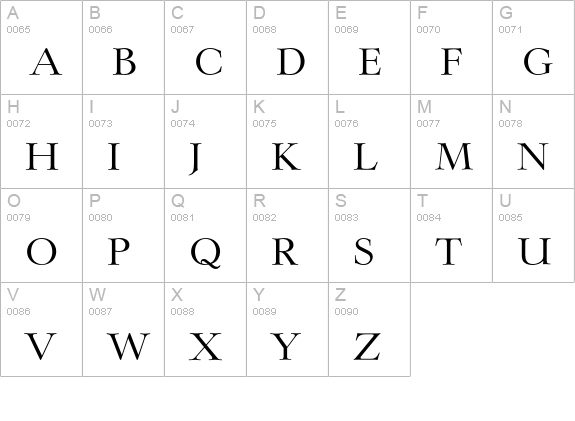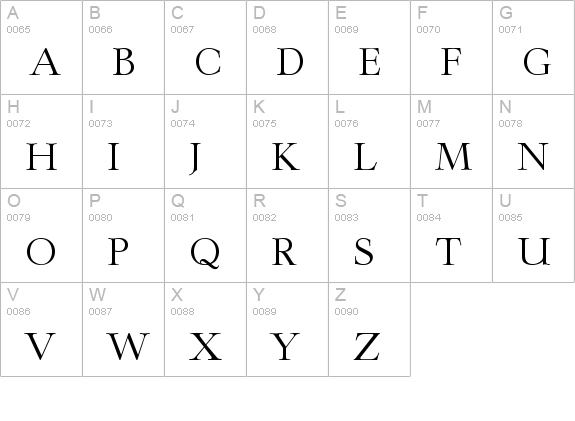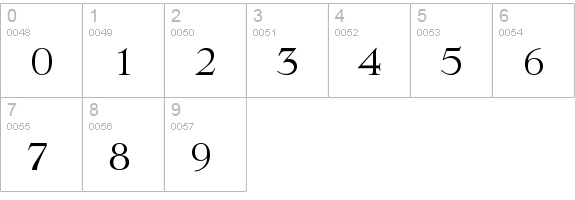
LingwoodEF-Regular is the standard, neutral variant in the LingwoodEF typeface family \xE2\x80\x94 well suited to general body text, paragraphs, and standard typographic work.
LingwoodEF-Regular is a sleek and modern font that exudes elegance and sophistication. Its clean lines and balanced proportions make it perfect for a wide range of design projects, from branding to editorial design. This versatile font is ideal for creating stylish logos, eye-catching headlines, and professional-looking documents. What sets LingwoodEF-Regular apart is not just its stylish design, but also the fact that it is completely free to download. Yes, you read that right - this high-quality font is freely available for download at FontsMarket.com, making it accessible to designers and creatives of all levels. Whether you're working on a personal project or a client's commission, LingwoodEF-Regular is sure to elevate your designs and give them a touch of sophistication. Download this font today and see for yourself the impact it can have on your creative work.